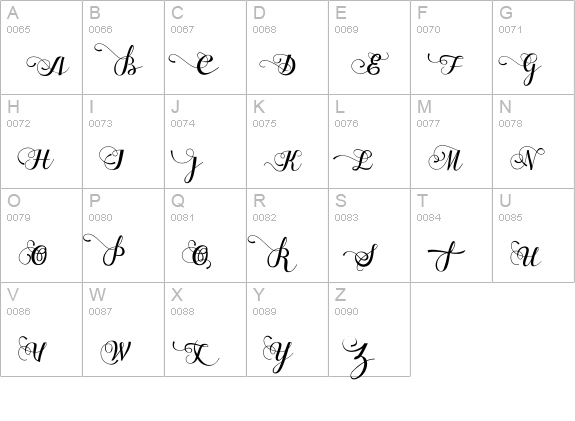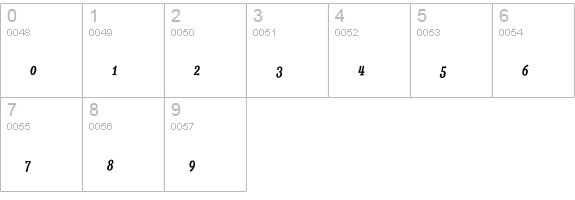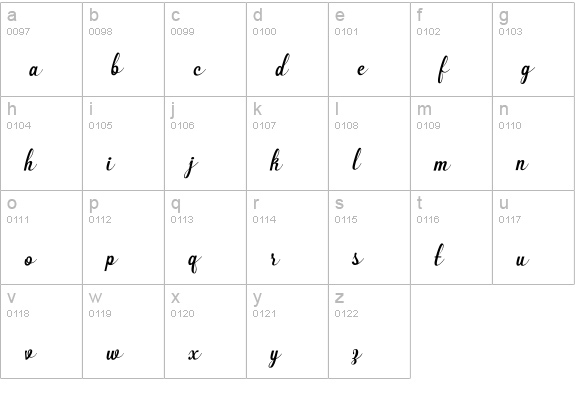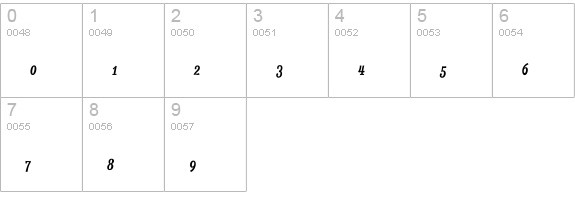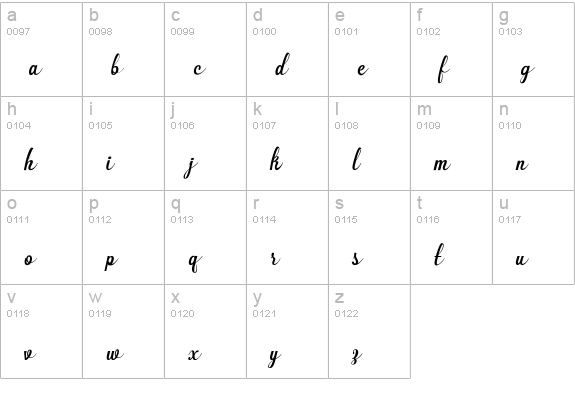
New Allea Script Font Details
Introducing the elegant and versatile New Allea Script font, a stunning addition to any designer's toolkit. This exquisite typeface features graceful curves and delicate lines, perfect for adding a touch of sophistication to any project. Whether you're designing wedding invitations, branding materials, or social media graphics, New Allea Script is sure to elevate your work to the next level. What sets New Allea Script apart is not only its beauty but also its accessibility. This premium font is available for free download at FontsMarket.com, allowing designers of all levels to enjoy its timeless elegance without breaking the bank. With its wide range of ligatures and stylistic alternates, New Allea Script offers endless possibilities for customization, making it a must-have for any creative professional. Embrace the beauty and versatility of New Allea Script font today and watch your designs come to life with sophistication and style. Download your free copy now and elevate your projects with this exquisite typeface.